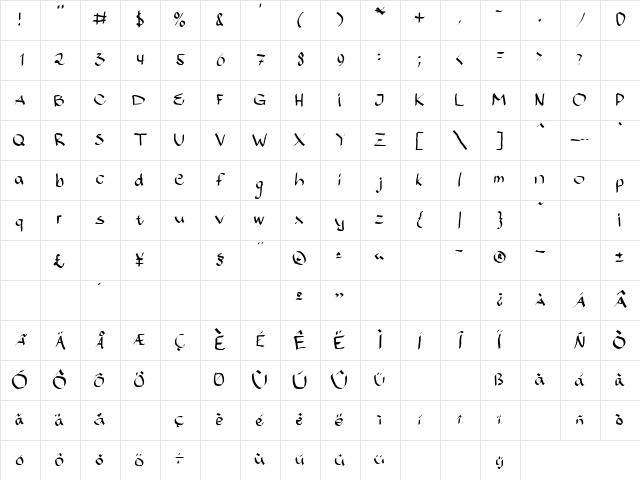
Complete Bajsporr Regular glyph index. Displaying only characters natively supported by Bajsporr Regular font.
Bajsporr is a composed and adaptable typeface that performs quietly and consistently across a wide range of design contexts.